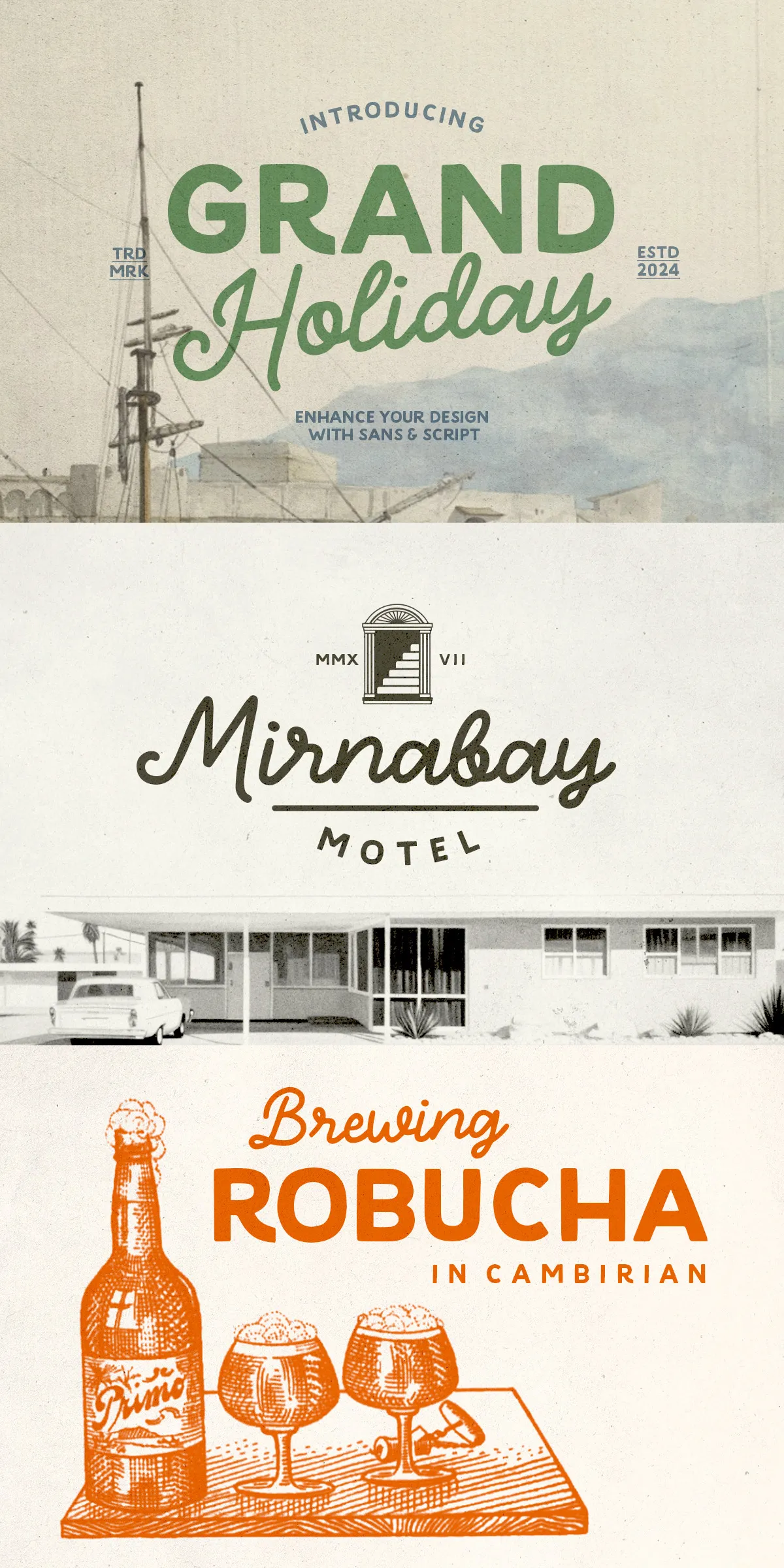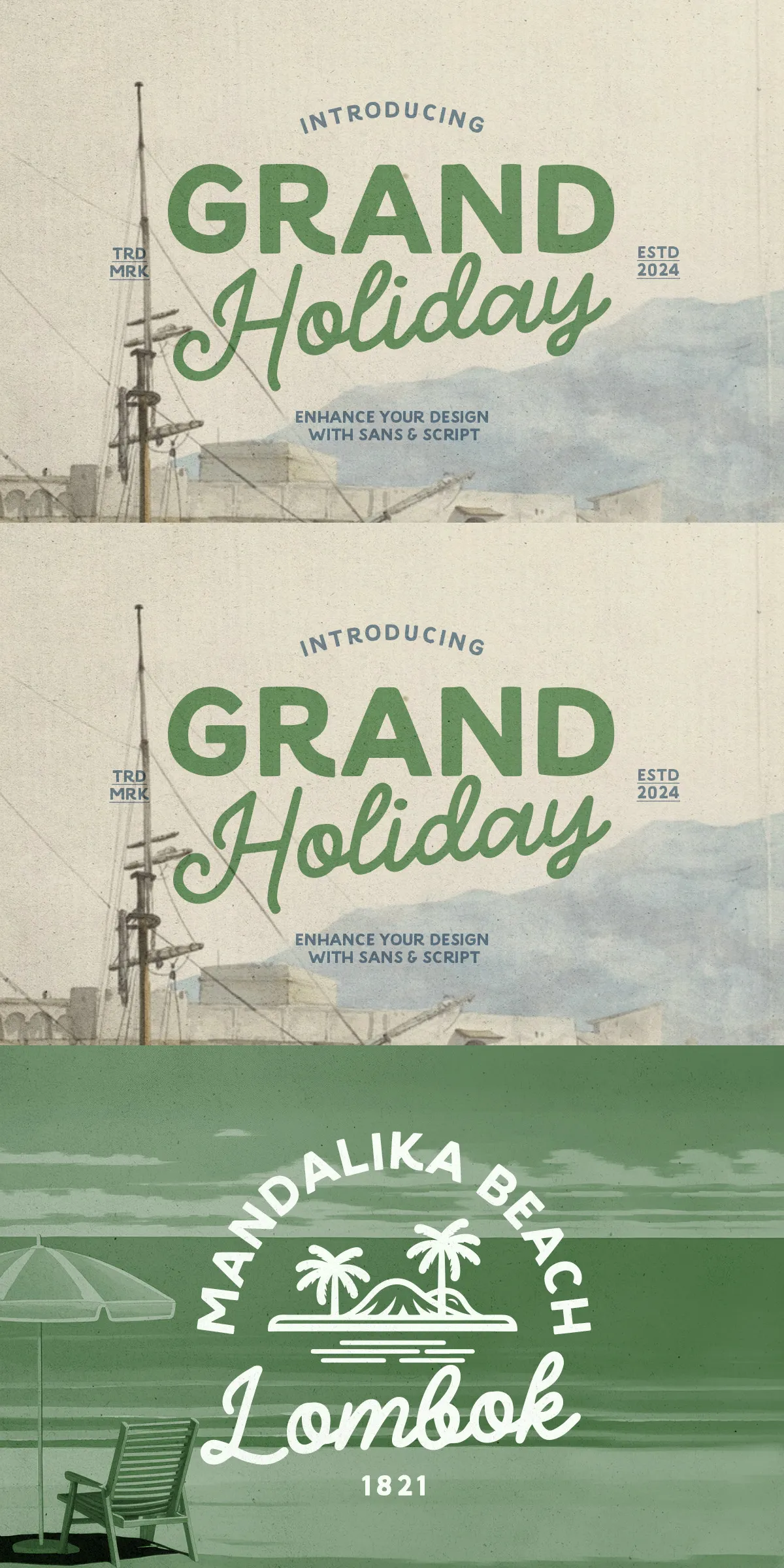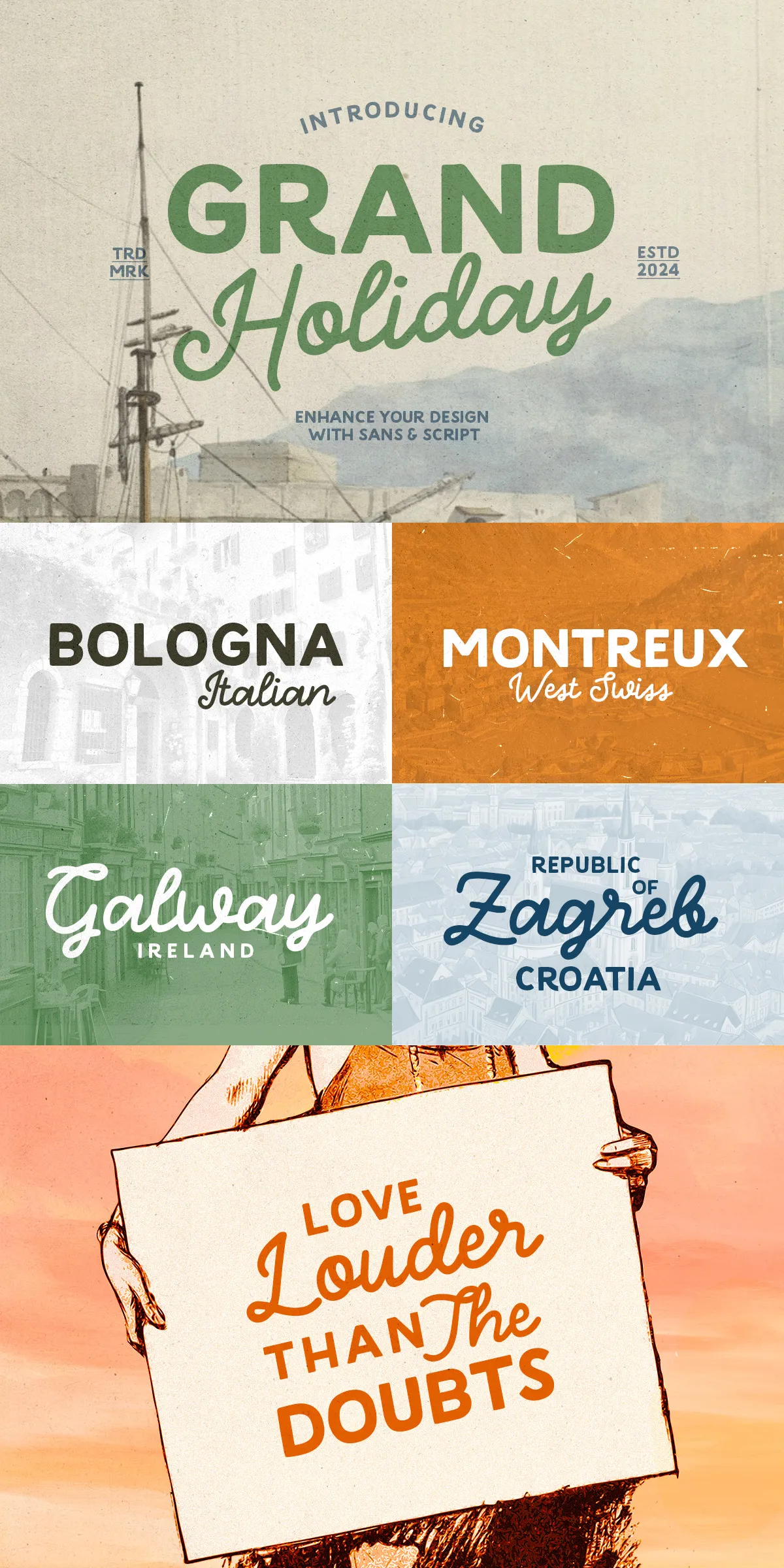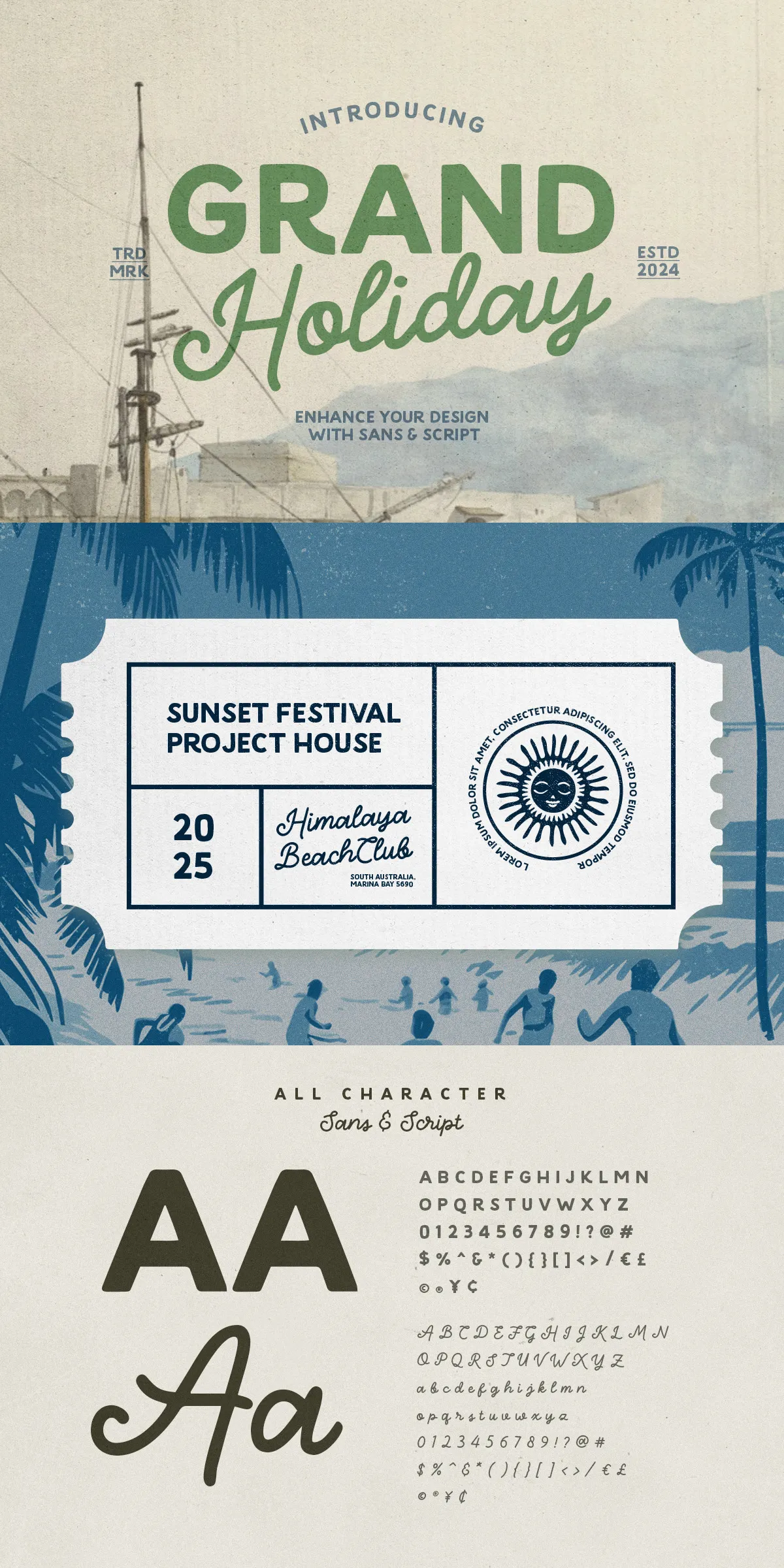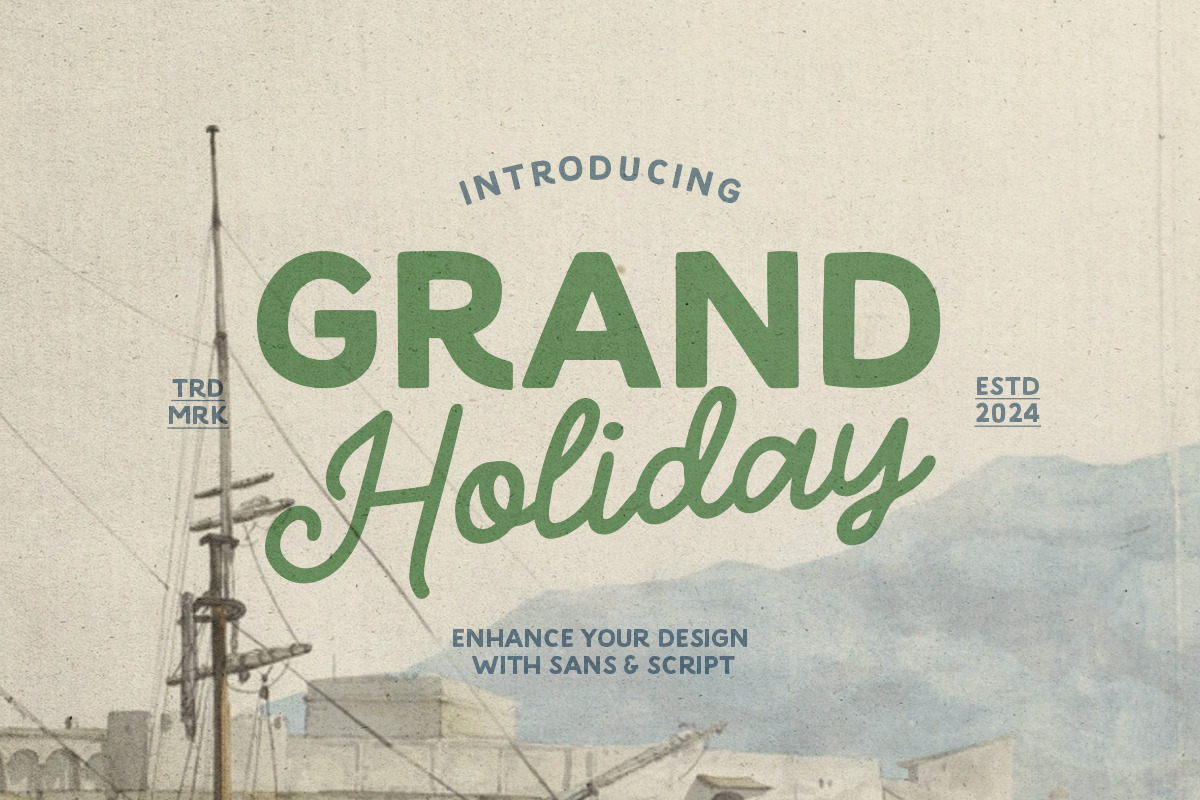
Step into the open road with Grand Holiday — a dynamic font duo that captures the soul of adventure, wanderlust, and minimalist style. Meticulously crafted by hand, this duo blends a sleek, clean minimalist sans-serif with a flowing, expressive monoline script, delivering a typographic experience that feels both modern and deeply personal. Whether you’re designing a travel poster, crafting a book cover, or building a brand identity for an adventure tour, Grand Holiday turns your vision into a visual journey.
Why Grand Holiday Stands Out: A Perfect Blend of Style & Substance
Built for creatives who value authenticity and impact, Grand Holiday is not just a font — it’s a storytelling tool. Every letter is hand-drawn with intention, preserving the warmth and character of real brushwork while maintaining the precision needed for professional design. The minimalist sans form delivers clarity and balance, while the monoline script adds movement, grace, and emotional depth. Together, they create a powerful visual contrast that speaks to both the mind and the spirit.
Power Features That Supercharge Your Creative Workflow
- Hand-Crafted with Authenticity – Each character in both fonts was meticulously designed by hand, giving Grand Holiday a unique, organic feel that machines can’t replicate.
- Complete Multi-Language Support – Designed with global adventure in mind, Grand Holiday supports over 50 languages, including Latin, Cyrillic, Greek, and extended European scripts. Perfect for international travel brands and multilingual content.
- Perfect for Outdoor & Adventure Themes – From mountain treks to beach getaways, this font duo was made for campaigns that evoke freedom, nature, and exploration. Ideal for adventure tourism, hiking brands, surf shops, and travel journals.
- Professional Typography Features – Includes ligatures, alternates, extended punctuation, and full character sets for polished, publication-ready results.
Where Grand Holiday Becomes Magic: Real-World Design Applications
Grand Holiday isn’t limited to one niche — it’s a versatile tool for every creative project with a sense of motion and meaning. Whether you’re a designer, marketer, or content creator, this font duo gives you a voice that resonates with authenticity and energy.
Top 6 Places Where Grand Holiday Shines
- Travel Posters & Brochures – Use the script for titles and taglines, and the sans-serif for body text. The contrast highlights key messages while maintaining visual harmony.
- Book Covers & Travel Journals – Perfect for titles of adventure memoirs, guidebooks, or creative nonfiction. The hand-lettered style adds a personal, artisan touch.
- Logo & Brand Identity – Create a standout brand name for a tour company, boutique travel agency, or outdoor gear label. The combination of clean and expressive styles signals professionalism with personality.
- Quote Cards & Social Media Graphics – Design shareable content for Instagram, Facebook, or Pinterest with travel quotes and inspirational messages. The font duo instantly adds emotional weight and style.
- Packaging for Adventure Brands – Ideal for water bottles, reusable bags, or merchandise with “Explore More” or “Adventure Awaits” themes. The bold script commands attention while the sans-serif keeps it modern and readable.
- Website Headers & Digital Campaigns – Use across landing pages, email templates, and digital ads to communicate energy, movement, and freedom. Supports responsive design across devices.
Design Like a Storyteller — Let Grand Holiday Be Your Voice
A great design doesn’t just inform — it inspires. Grand Holiday does both. It invites your audience to dream, to plan, to move. With this font duo, your message isn’t just seen — it’s felt. It’s not just a tool; it’s a creative partner that brings the spirit of travel to life on every page.
Pro Tips for Mastering Grand Holiday in Your Projects
- Use the monoline script for headlines, quotes, and titles — let it lead the emotional tone.
- Pair the minimalist sans-serif with neutral or earth-toned backgrounds to keep focus on the elegant script.
- Apply subtle spacing or texture overlays to enhance the handmade feel, especially in print designs.
- Use all caps for the script font in logos to emphasize strength and confidence in brand identity.
Ready to transform your creative projects with a font that feels like a passport? Grand Holiday is more than typography — it’s an invitation to explore, create, and connect. Whether you’re launching a brand, promoting a trip, or designing content for wanderers, this font duo gives you the tools to speak with soul.